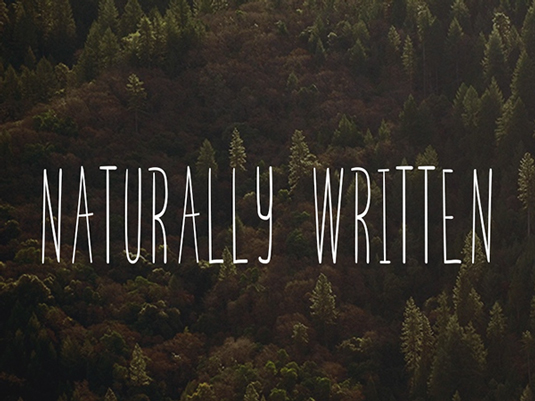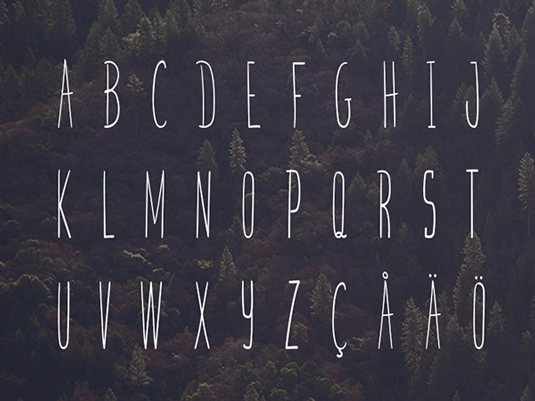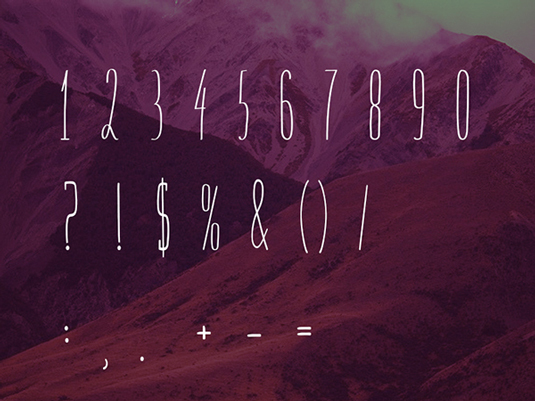
Font of the day: Skinny Bastard
Every day we showcase the best fonts on the web. Today it's Skinny Bastard by Marcelo Reis Melo, which is totally free to download.
Skinny Bastard by Marcelo Reis Melo
Today's typeface of choice is handwritten design Skinny Bastard by Marcelo Reis Melo. Full of personality and with lots of energy, this new skinny handwritten font it great for creating stand-out headlines.